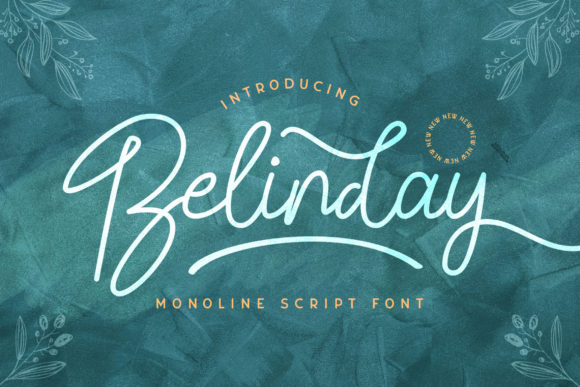
Belinday Font: A Joyful and Timeless Handwritten Font
Are you looking for a font that can add a touch of joy and timelessness to your designs? Look no further than Belinday Font! This beautiful handwritten font is incredibly versatile and can match a wide pool of designs. In this article, we’ll take a closer look at Belinday Font and explore its features, benefits, and uses.
Features of Belinday Font
Belinday Font is a handwritten font that exudes a sense of joy and playfulness. Its unique and elegant strokes make it perfect for a wide range of design projects, from wedding invitations and greeting cards to branding and advertising materials. Here are some of the key features of Belinday Font:
- Handwritten style: Belinday Font has a beautiful, handwritten style that gives it a personal and human touch.
- Versatile: This font is incredibly versatile and can match a wide pool of designs, from modern and minimalist to vintage and rustic.
- Elegant strokes: Belinday Font features elegant strokes that add a touch of sophistication and refinement to any design.
- Easy to read: Despite its elegant and cursive style, Belinday Font is easy to read and understand, making it perfect for body text and headlines.
Benefits of Using Belinday Font
Belinday Font offers a range of benefits that make it an excellent choice for designers and crafters. Here are some of the benefits of using Belinday Font:
- Adds a personal touch: Belinday Font’s handwritten style adds a personal touch to any design, making it perfect for projects that require a human touch.
- Enhances creativity: This font’s unique and elegant strokes can inspire creativity and add a touch of imagination to any design.
- Perfect for branding: Belinday Font is perfect for branding projects, as it can help create a unique and memorable identity for any business or product.
- Wide range of uses: This font can be used for a wide range of design projects, from print materials to digital products.
Uses of Belinday Font
Belinday Font is incredibly versatile and can be used for a wide range of design projects. Here are some of the most popular uses of Belinday Font:
- Wedding invitations: Belinday Font is perfect for wedding invitations, as it adds a touch of elegance and romance to any design.
- Greeting cards: This font is also great for greeting cards, as it can add a personal and human touch to any message.
- Branding and advertising: Belinday Font is perfect for branding and advertising projects, as it can help create a unique and memorable identity for any business or product.
- Digital products: This font can also be used for digital products, such as e-books, blogs, and social media graphics.
Tips for Using Belinday Font
Here are some tips for using Belinday Font effectively:
- Use it sparingly: Belinday Font is a beautiful font, but it can be overwhelming if used too much. Use it sparingly to add a touch of elegance and sophistication to your designs.
- Pair it with other fonts: Belinday Font can be paired with other fonts to create a unique and interesting contrast. Experiment with different font combinations to find the perfect match.
- Adjust the size and color: Belinday Font can be adjusted to different sizes and colors to fit your design needs. Experiment with different sizes and colors to find the perfect fit.
Belinday Font is a beautiful handwritten font that can add a touch of joy and timelessness to any design. Its unique and elegant strokes make it perfect for a wide range of design projects, from wedding invitations and greeting cards to branding and advertising materials. With its versatility, elegance, and ease of use, Belinday Font is an excellent choice for designers and crafters. So why not give it a try and see how it can bring your designs to life?